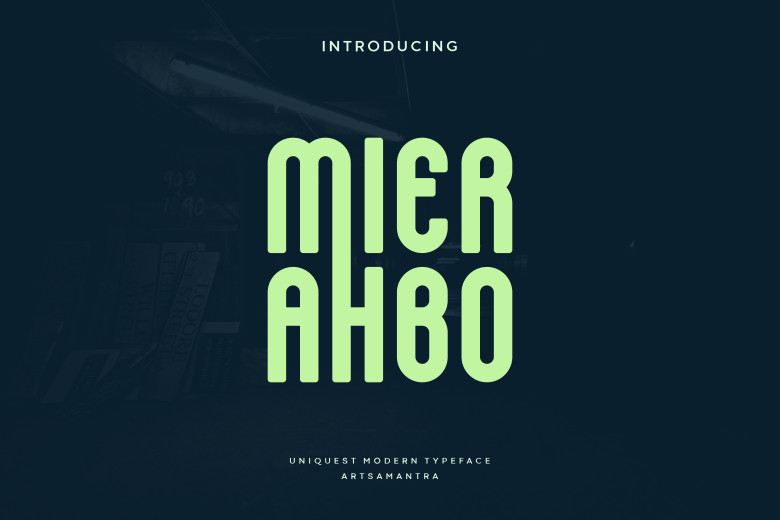
Mierahbo Font
Mierahbo has an eye-catching design, featuring slight variation between uppercase letters. Though all caps, this font can be utilized in numerous applications related to future-related design; illustrations, posters, titles, logos, magazines and other designs will all benefit from its use.
Mierahbo Display Font